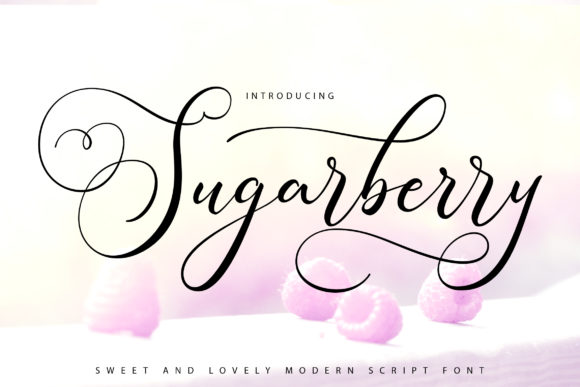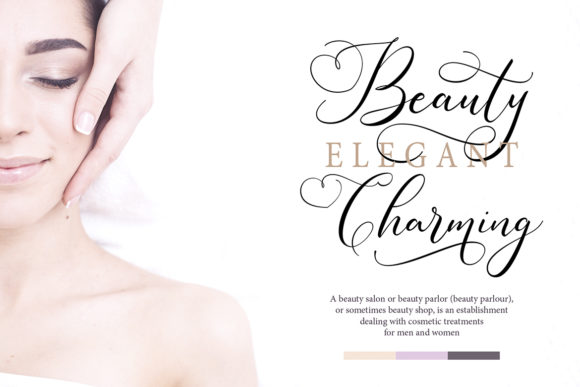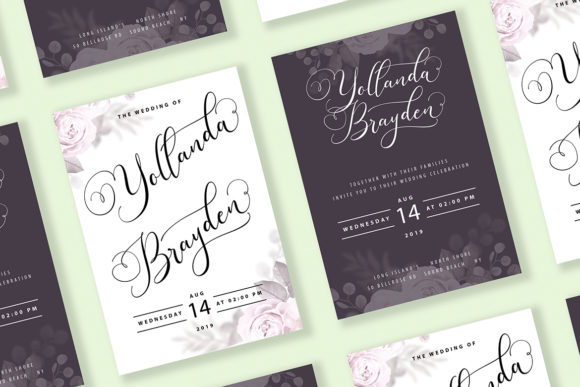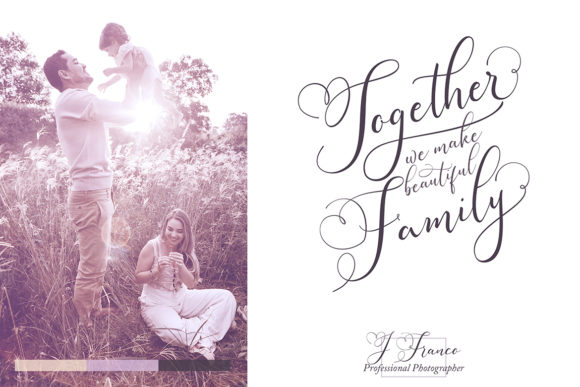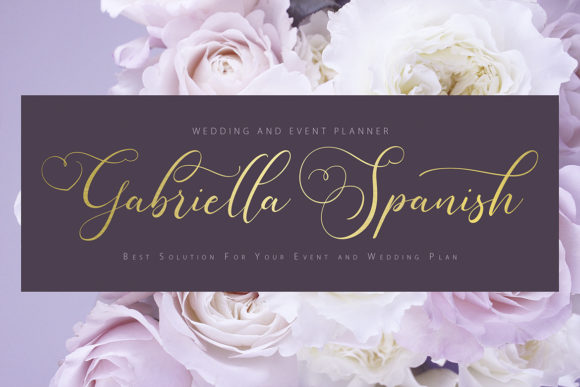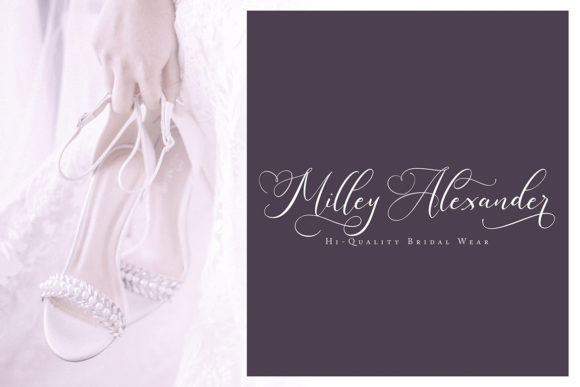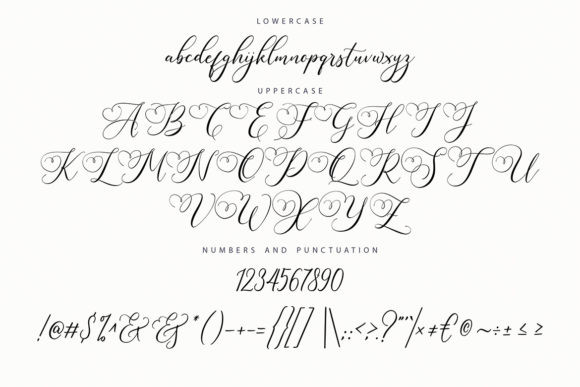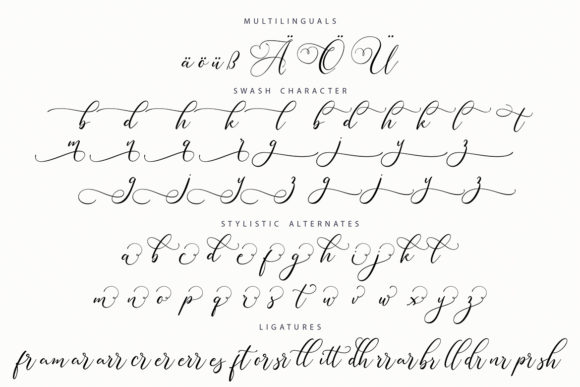
HomeScript FontsSugarberry Font Script Fonts Sugarberry Font FacebookXPinterestWhatsApp Sugarberry Font Poster 2 Sugarberry Font Poster 3 Sugarberry Font Poster 4 Sugarberry Font Poster 5 Sugarberry Font Poster 6 Sugarberry Font Poster 7 Sugarberry Font Poster 8 About Sugarberry Font Sugarberry is a beautiful and unique handwritten font. Get inspired by its unique style! DOWNLOAD NOW People also explored Rasalia Font Aharon Font Fresh Blackberries Font Astage Font Cowboy Stories Bymberangiykas Full Font Ornament Font Halloween Horoscope Font Sunnylane Font 297 0 TagsSugarberry Font Previous articleThe Quietty FontNext articleDelandia Font LEAVE A REPLY Cancel reply Comment: Please enter your comment! Name:* Please enter your name here Email:* You have entered an incorrect email address! Please enter your email address here Website: Save my name, email, and website in this browser for the next time I comment. Personal Use Free Baby Magnolia Personal Use Free Read more about this font Just Smile Personal Use Free Read more about this font Cataclysmo Personal Use Free Read more about this font Arnprior Personal Use Free Read more about this font BLOG Elegant Wedding Invitation Fonts – Handwritten & Script Fonts Elegant Wedding Invitation Fonts Your wedding day is one of the most important moments of your life, and every detail matters—including your invitation design. Our... Best Fonts for T-Shirt Design – Top 2025 Picks How to Cut Any Font on Cricut: Convert a Font to SVG (Free) Using Fonts in Digital Marketing: Tips to Strengthen Your Brand Identity